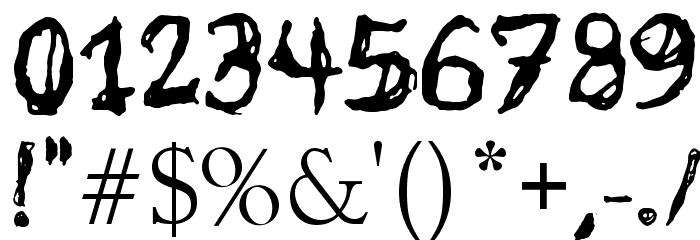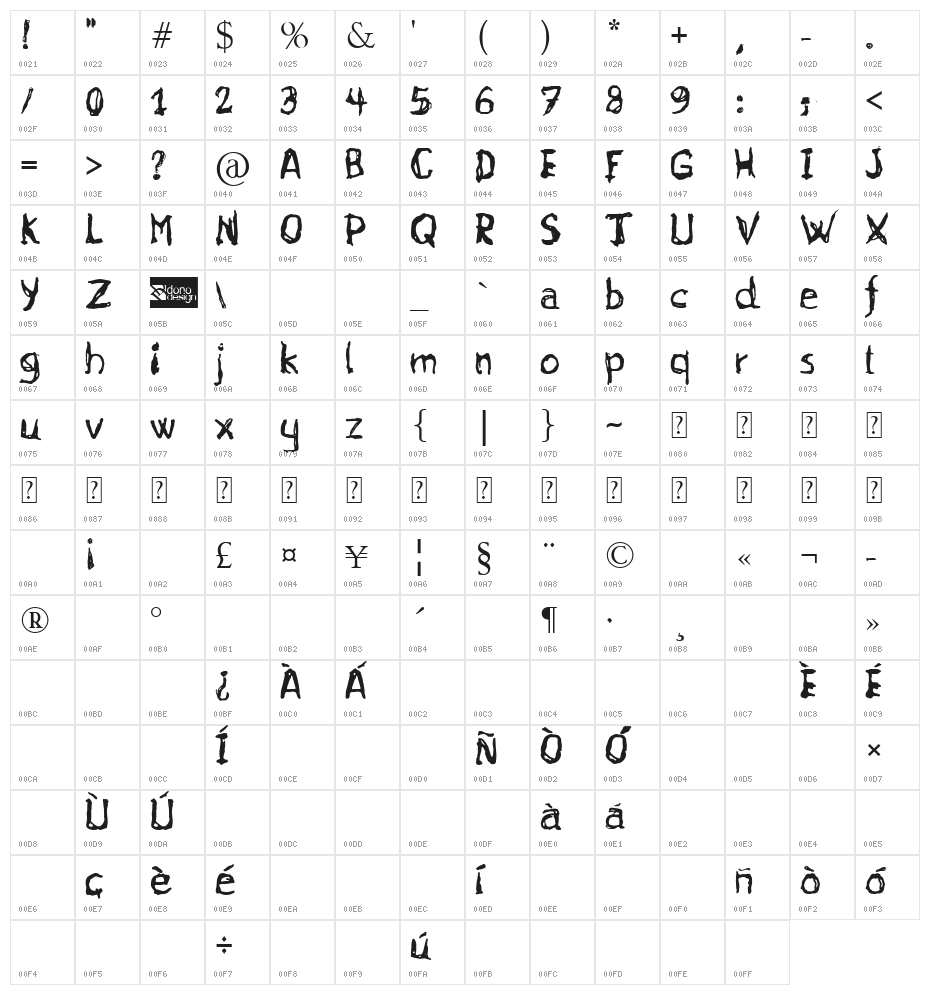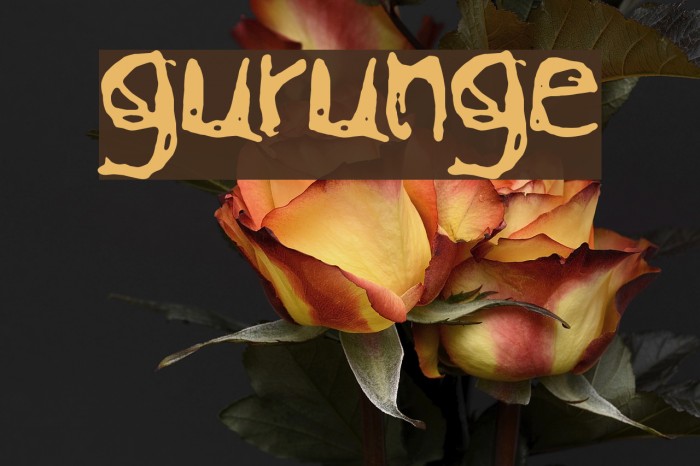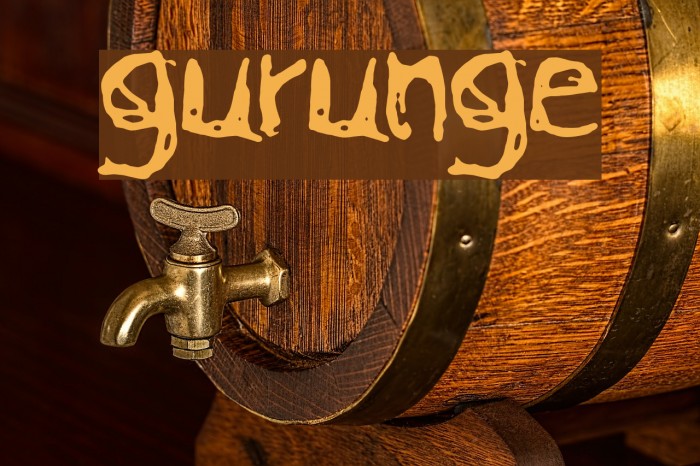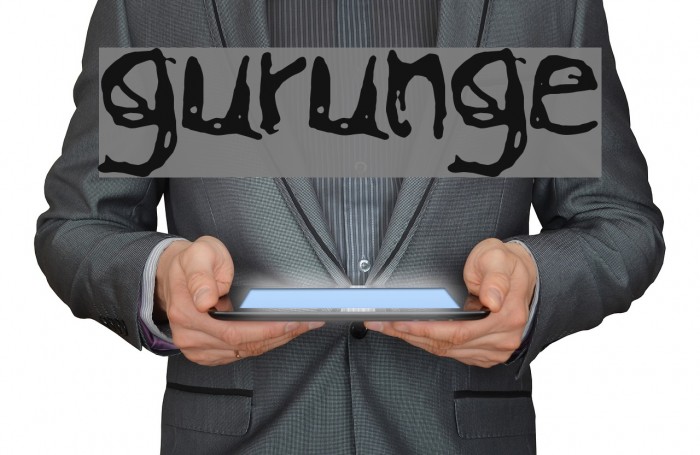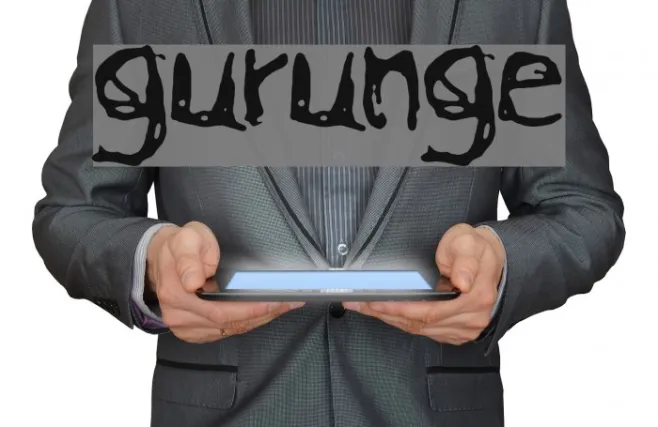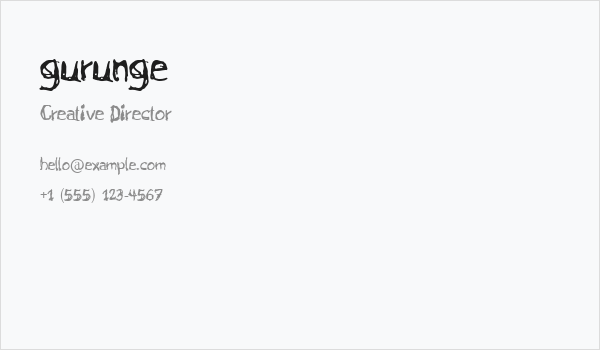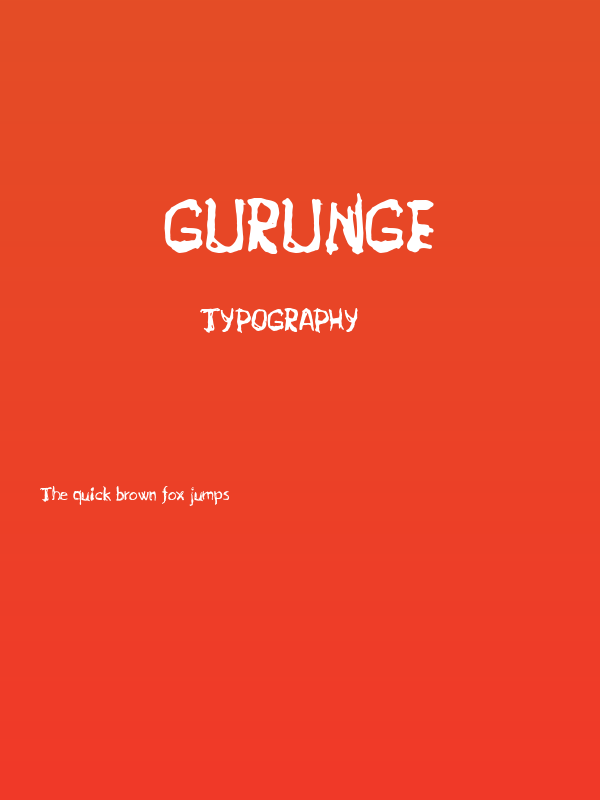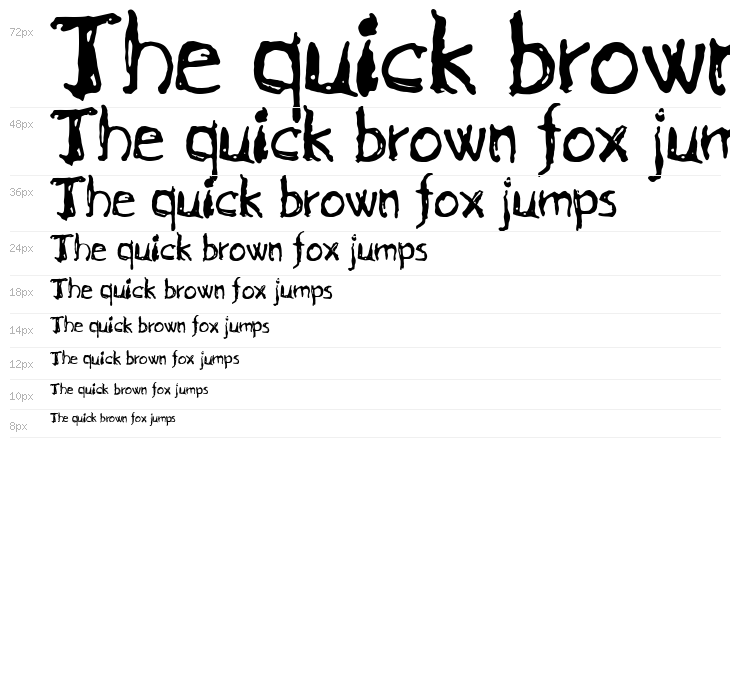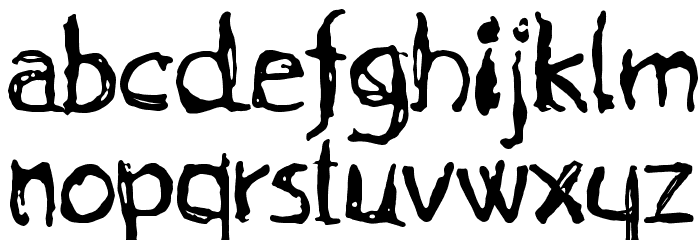
gurunge Font
gurunge Description
This font features a highly expressive and artistic style, characterized by its irregular, hand-drawn appearance. Each letter is unique, with uneven strokes and a rough texture that gives it a raw, organic feel. The font's design is reminiscent of graffiti or brush strokes, with a playful yet edgy aesthetic. Its bold and dynamic nature makes it stand out, while the varying thickness of the strokes adds depth and character. The overall look is both chaotic and deliberate, making it suitable for creative and unconventional projects.
| Proposed Projects | Ideal for album covers, street art-inspired designs, posters, and creative branding projects. |